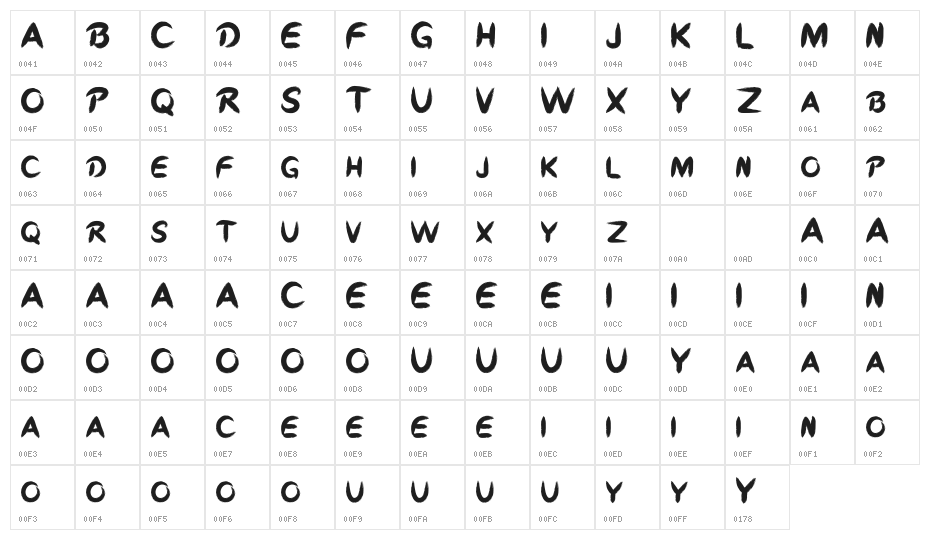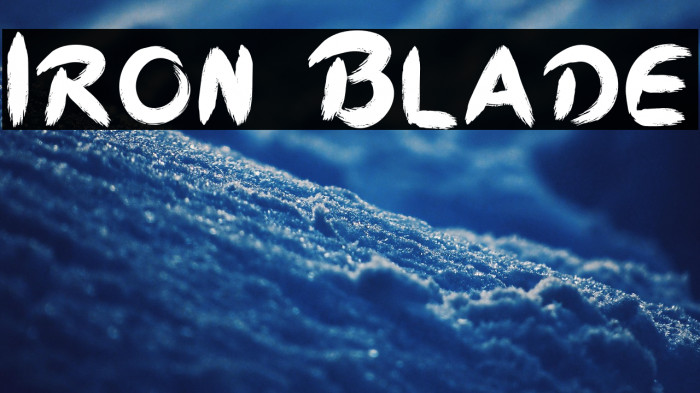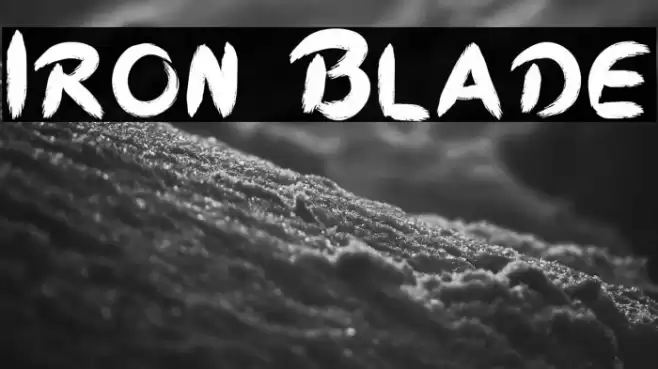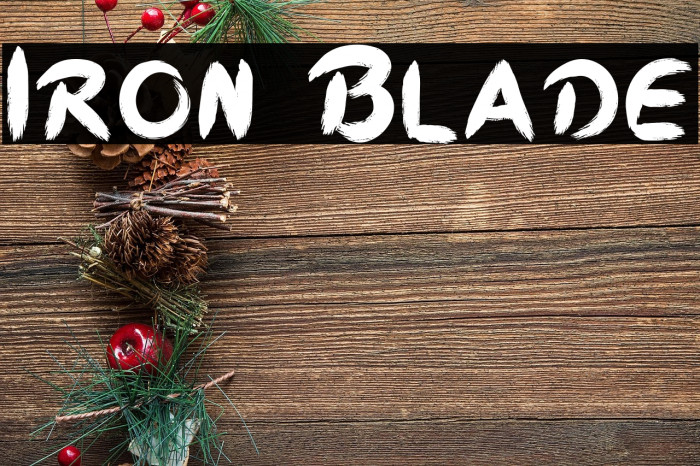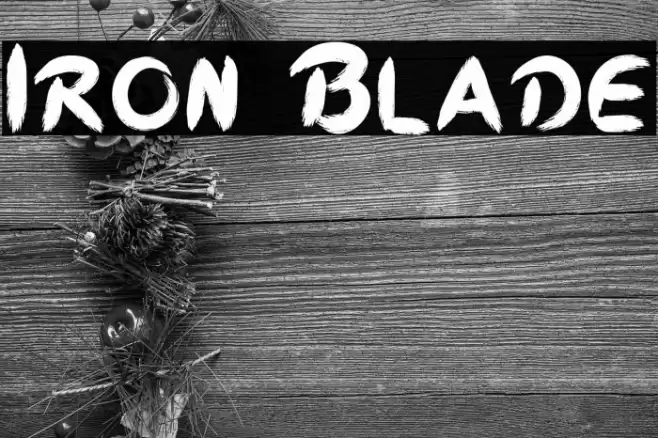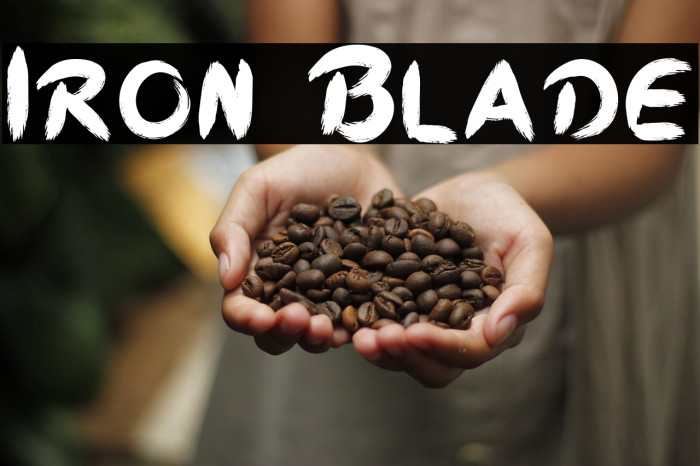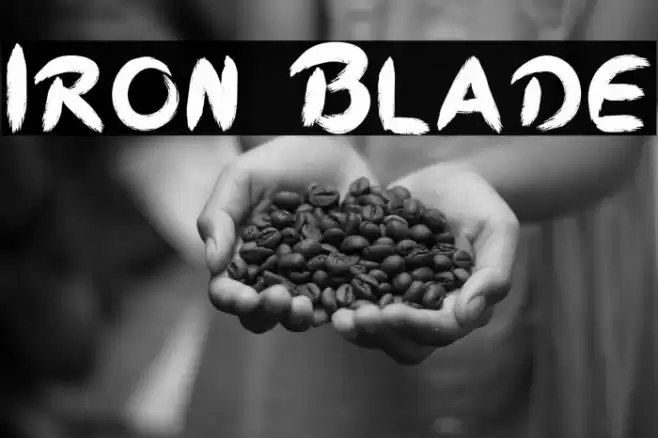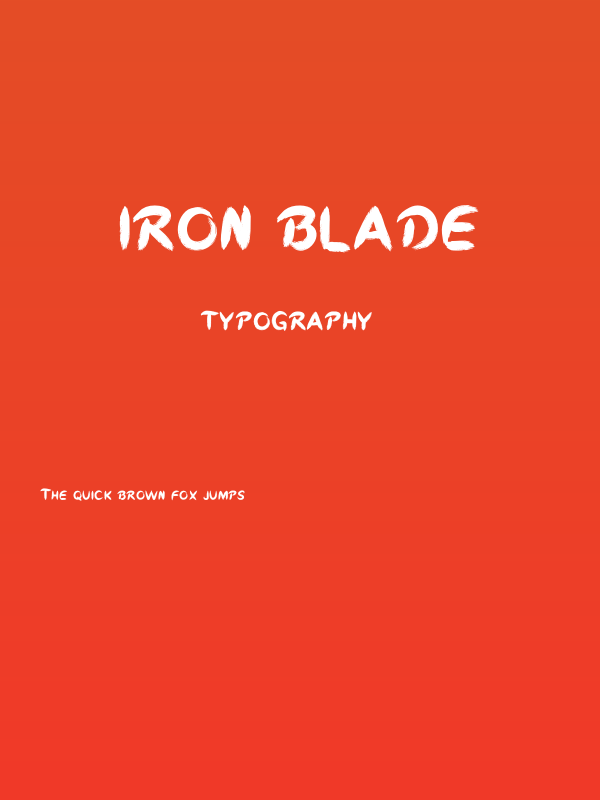
Iron Blade Font
Iron Blade Description
This font features a bold and dynamic brushstroke style, characterized by its thick, expressive lines and slightly irregular edges, giving it a hand-painted appearance. The uppercase letters are robust and impactful, making them ideal for attention-grabbing headlines. The strokes vary in thickness, adding a sense of movement and energy to the text. The overall design is modern yet retains a touch of artistic flair, making it suitable for creative projects. The absence of lowercase letters and numerals suggests a focus on display use, emphasizing its decorative nature.
| Proposed Projects | Ideal for posters, branding, logos, and any project requiring a strong visual impact. |